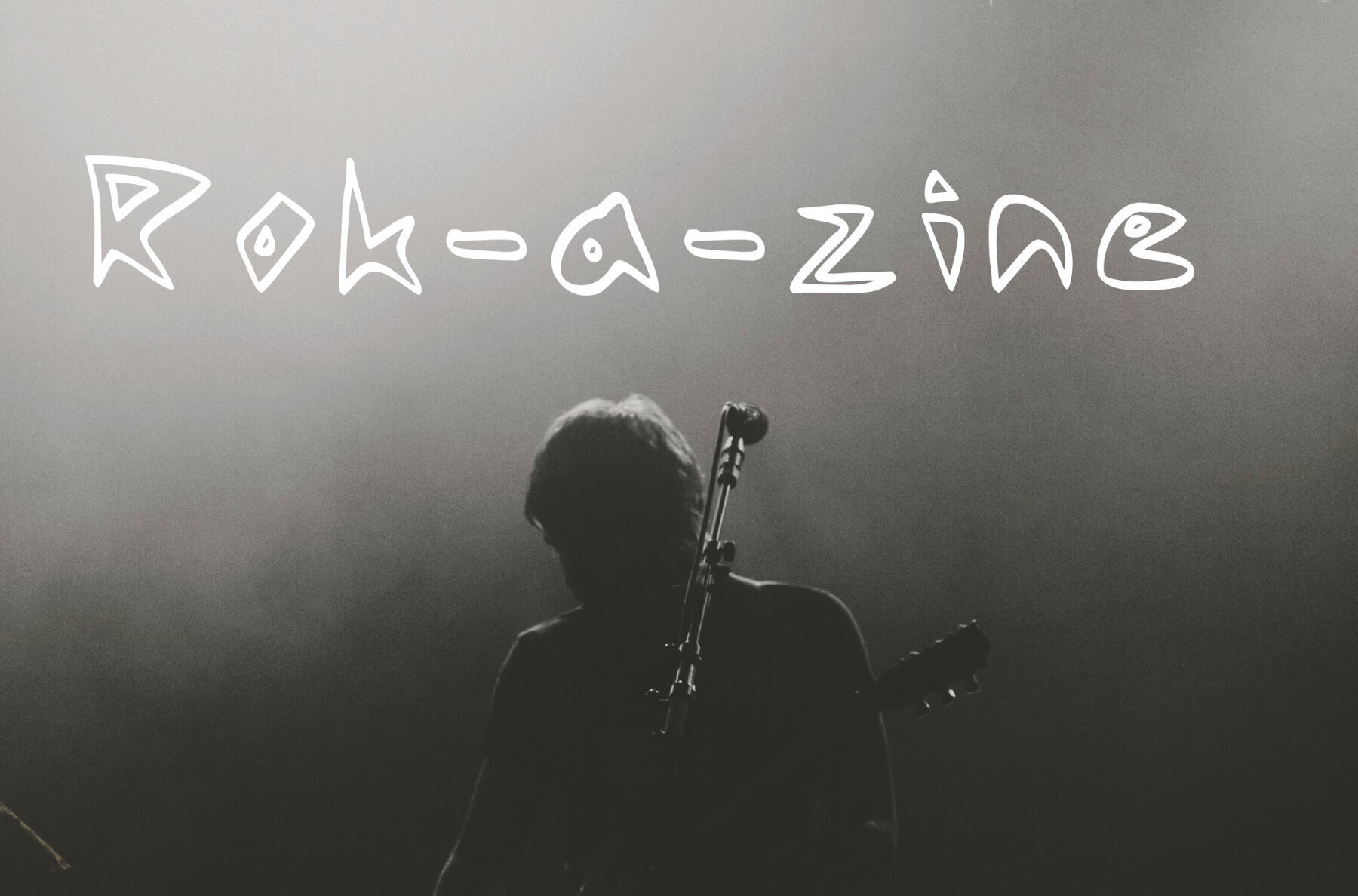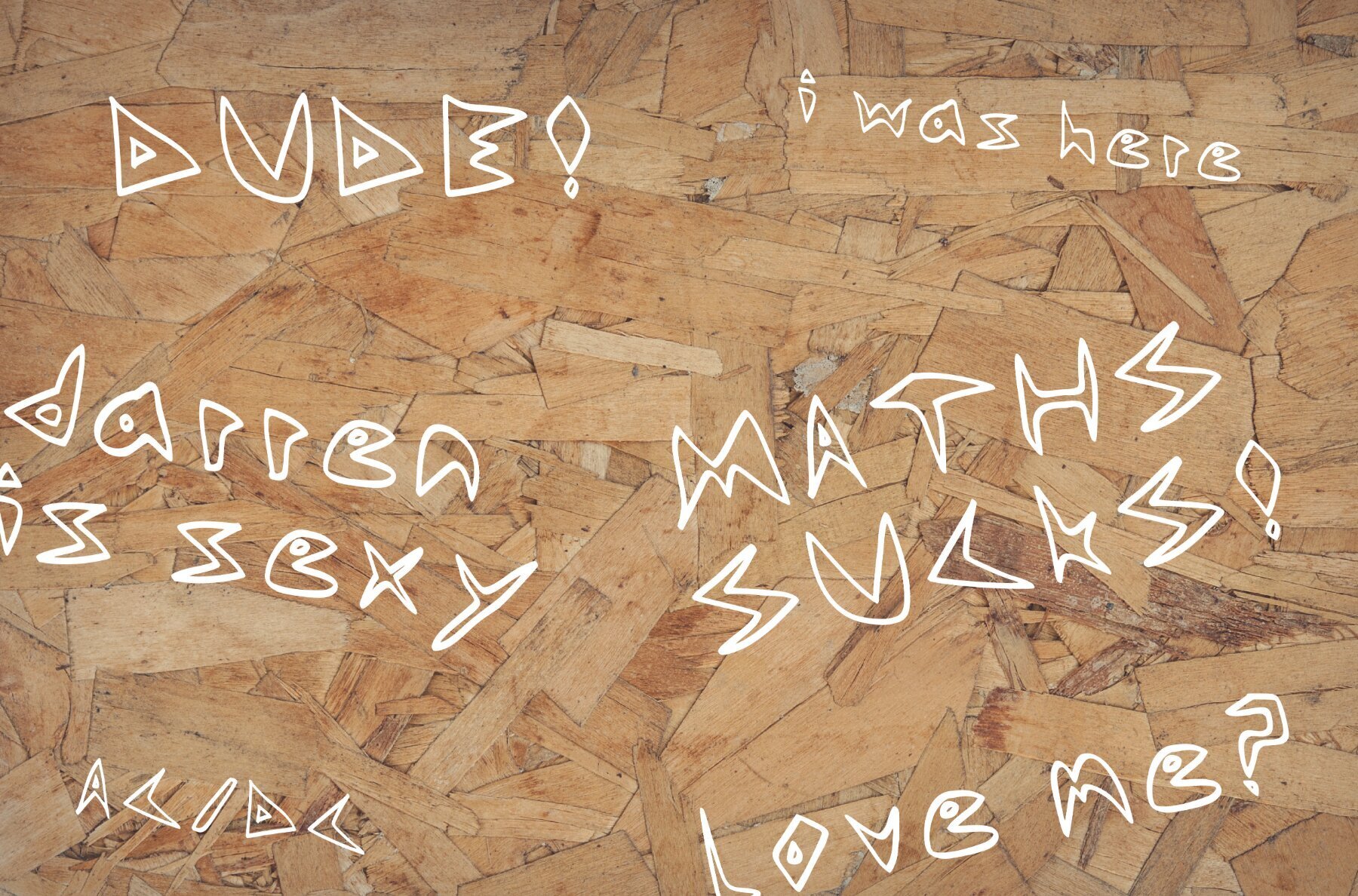
Rok a zine Font
Unleash the creative spirit of DIY culture with Rok-a-zine, a font by Graphics Bam that brings a raw edge to your projects. Rok-a-zine is a unique blend of cute, rushed, handwritten, and artsy styles, perfect for emphasizing the grit and character of your designs. Explore the world of zines—passionate, punk, and riotous creations that capture the essence of low-cost production. Rok-a-zine offers you the perfect tool to infuse that same dynamic energy into your own creative endeavors. Let your ideas take shape with this distinctive font, designed to inspire and ignite your imagination.Rok-a-zine Font: Capture the Grit of Your Designs
About Rok-a-zine